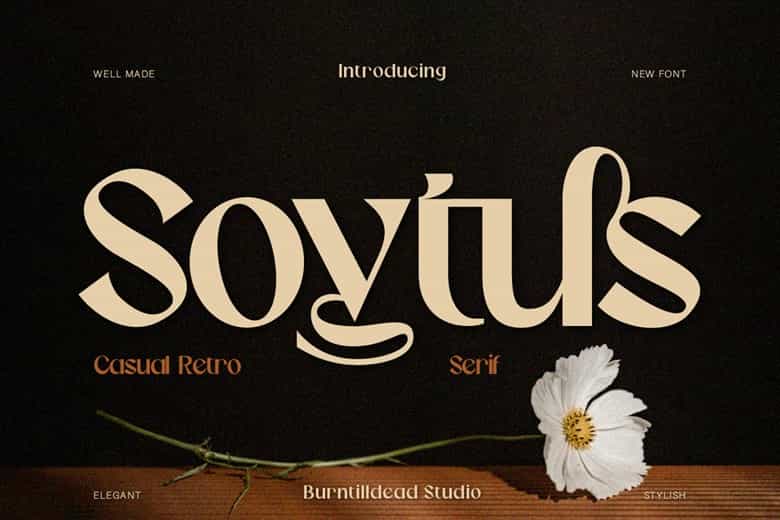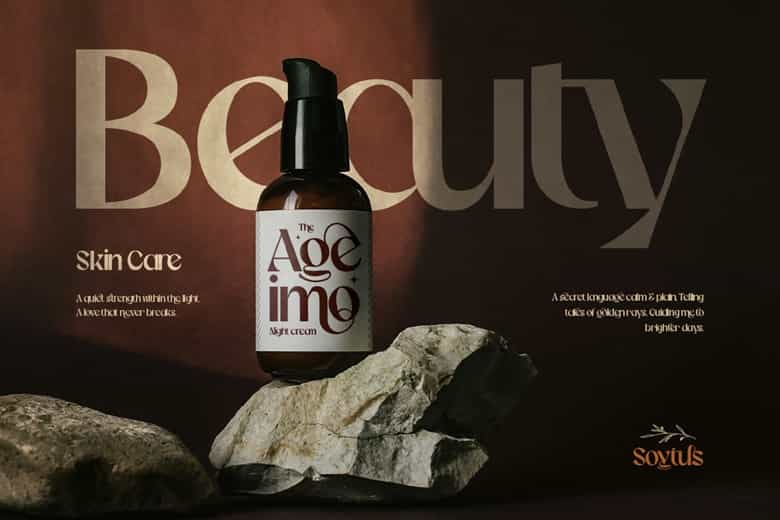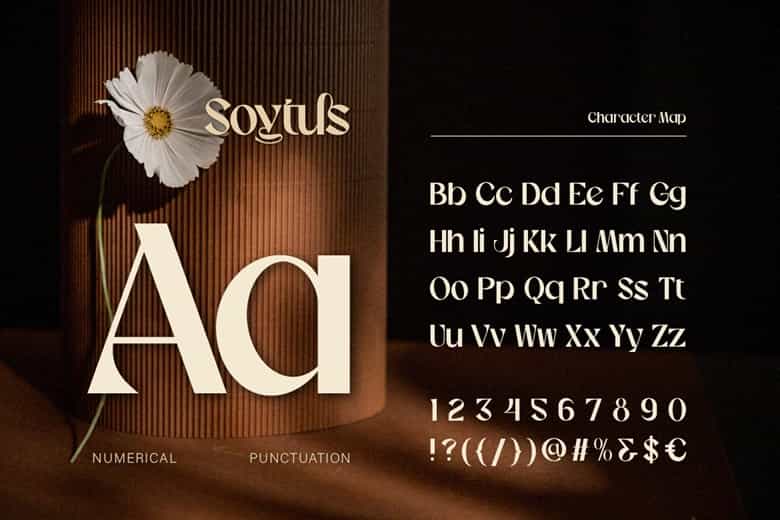
Soytus is an elegant casual retro serif font. This font is a combination of traditional and modern look. This design has neat lines and soft curves on the side to give a very sleek look. The ligatures give a little more professionalism and grace while the other fonts are more laid-back.